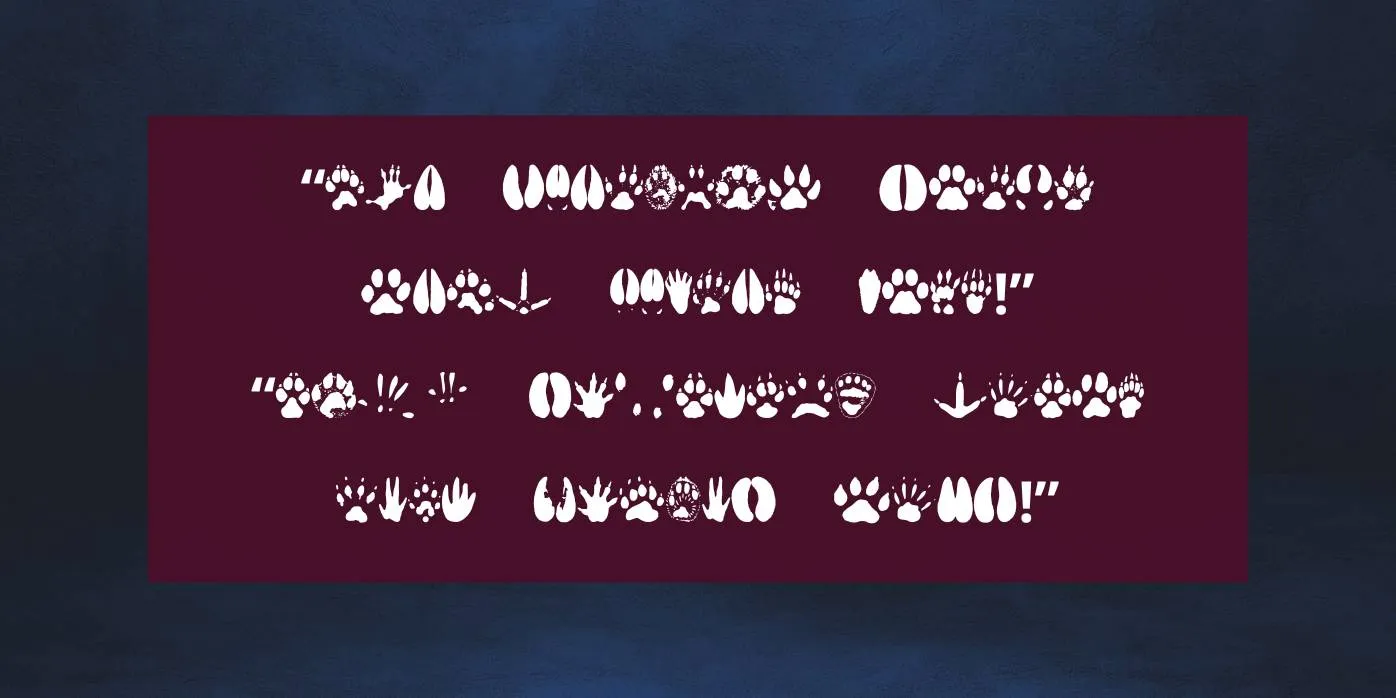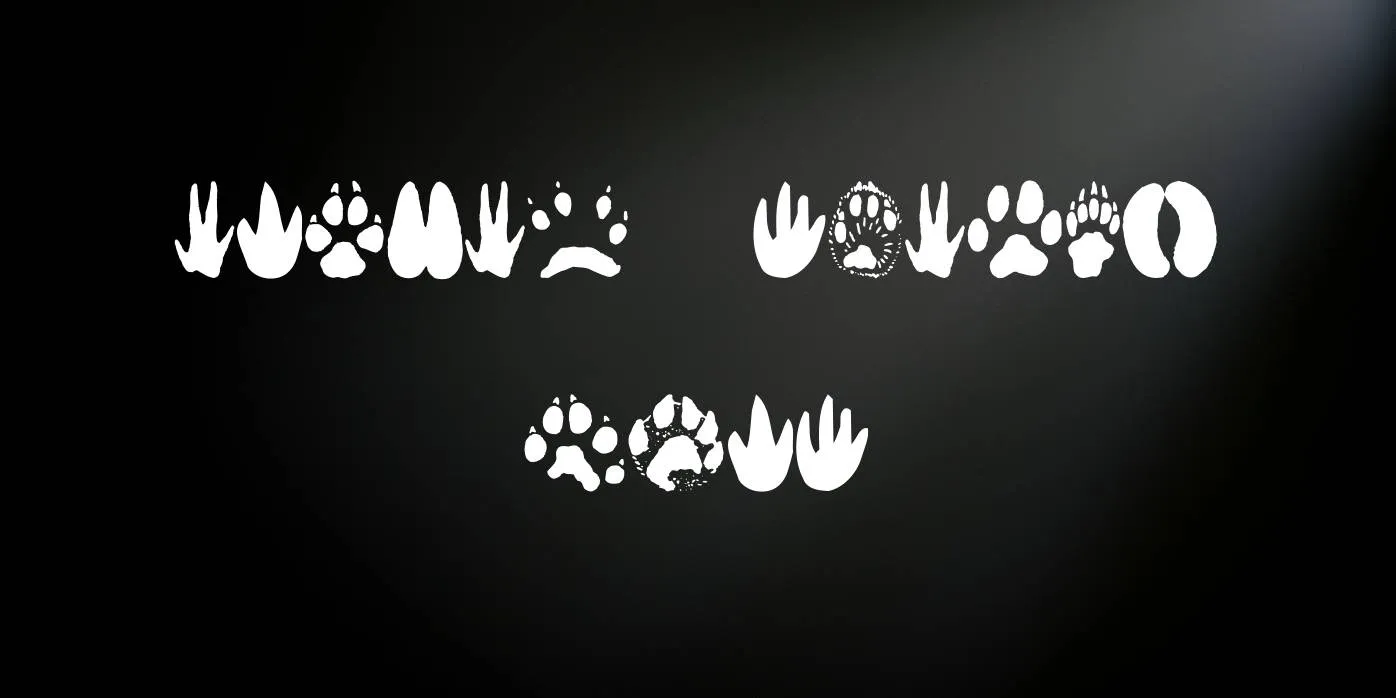
Animal Tracks Font
Introducing a dingbat-type texture. Andrew D. Taylor was the designer of this typeface. Animal Tracks Font has characters like the paws of the animals. This typeface is also easily available on this website.